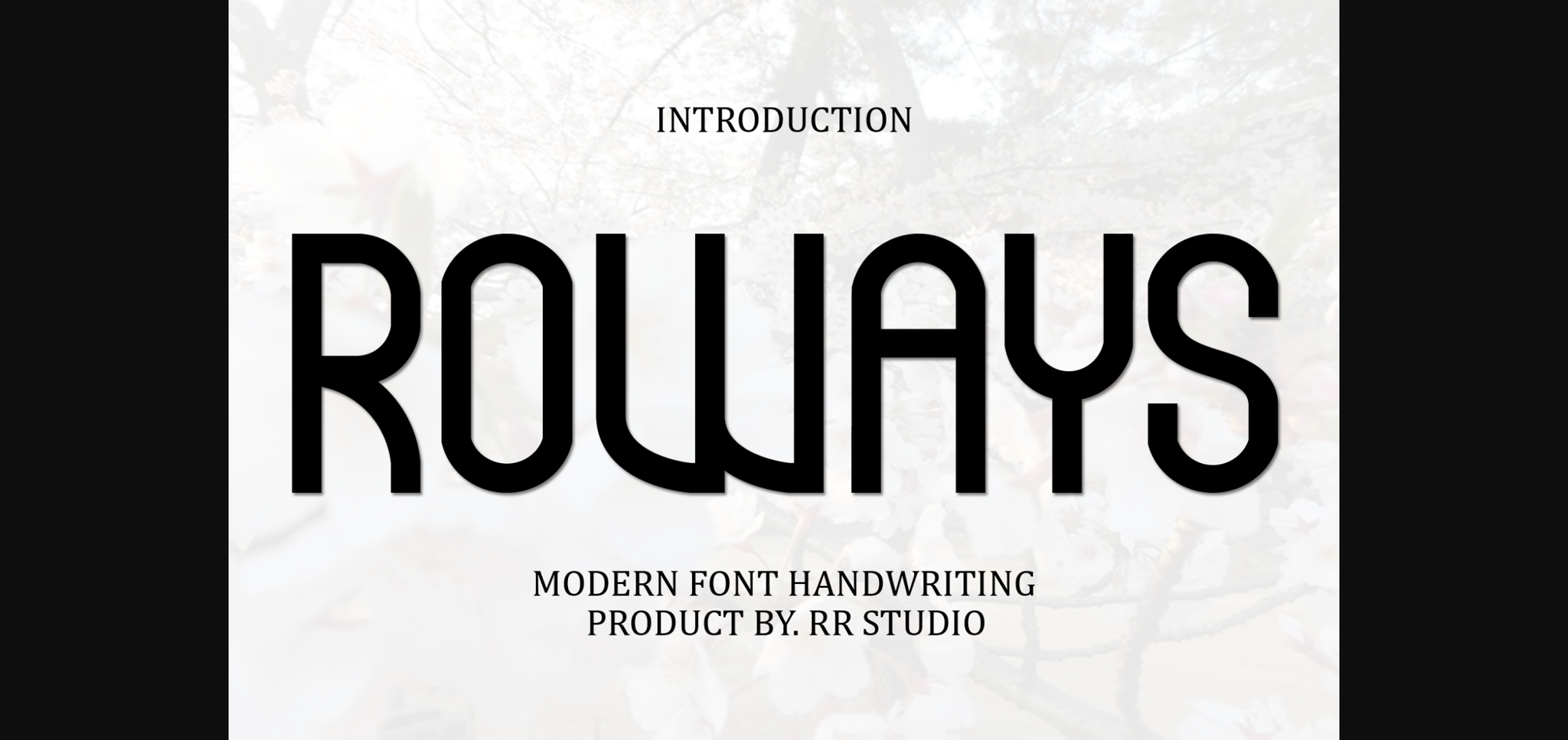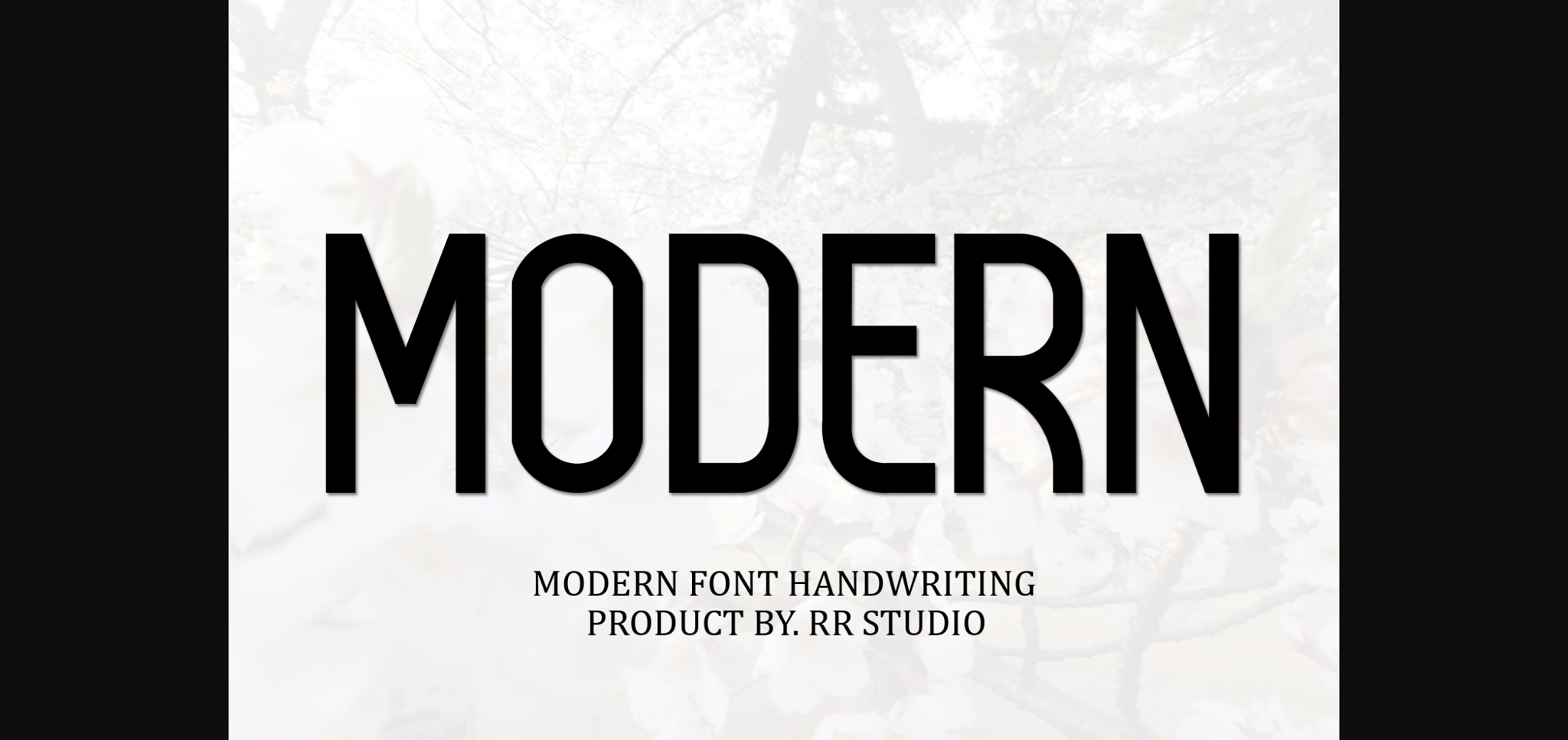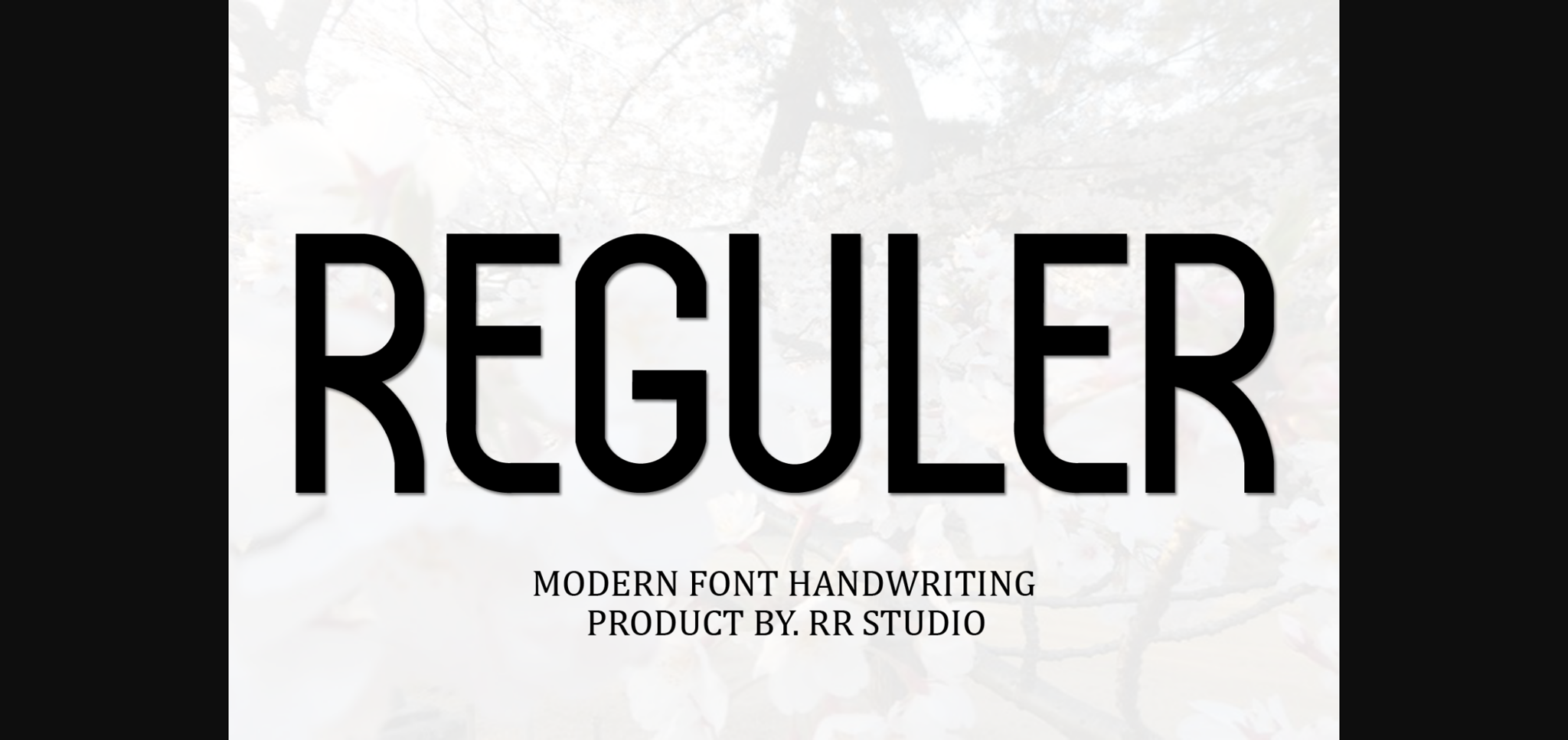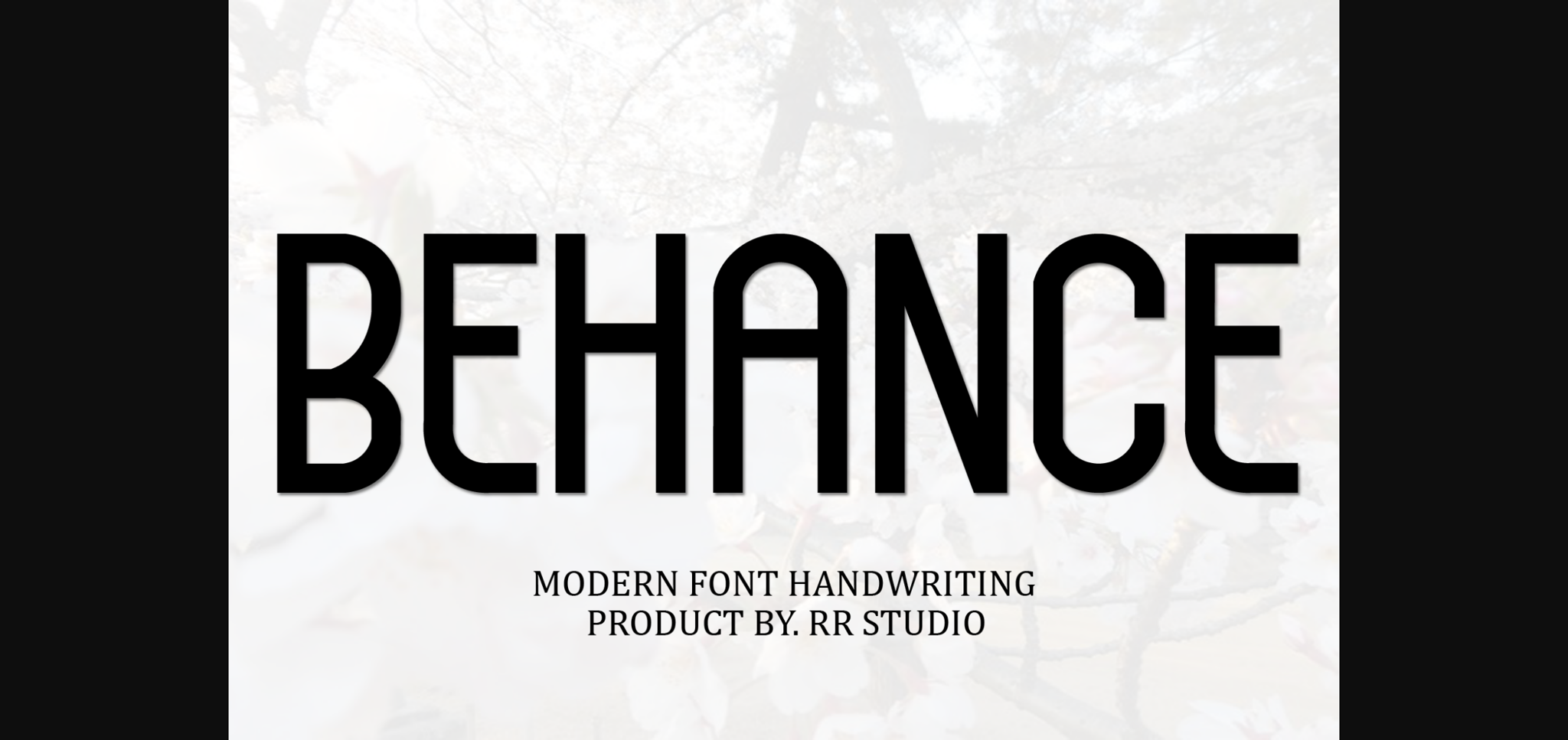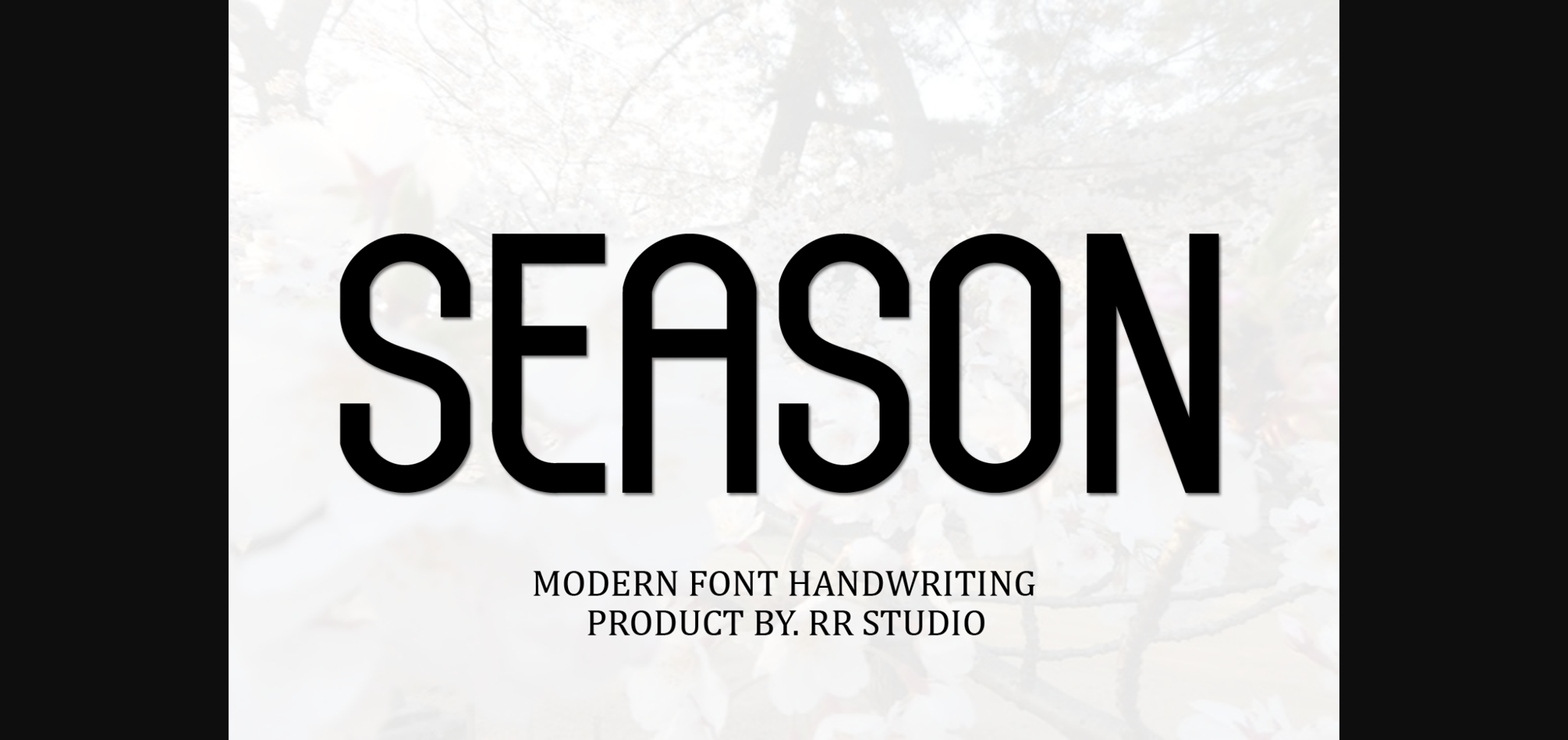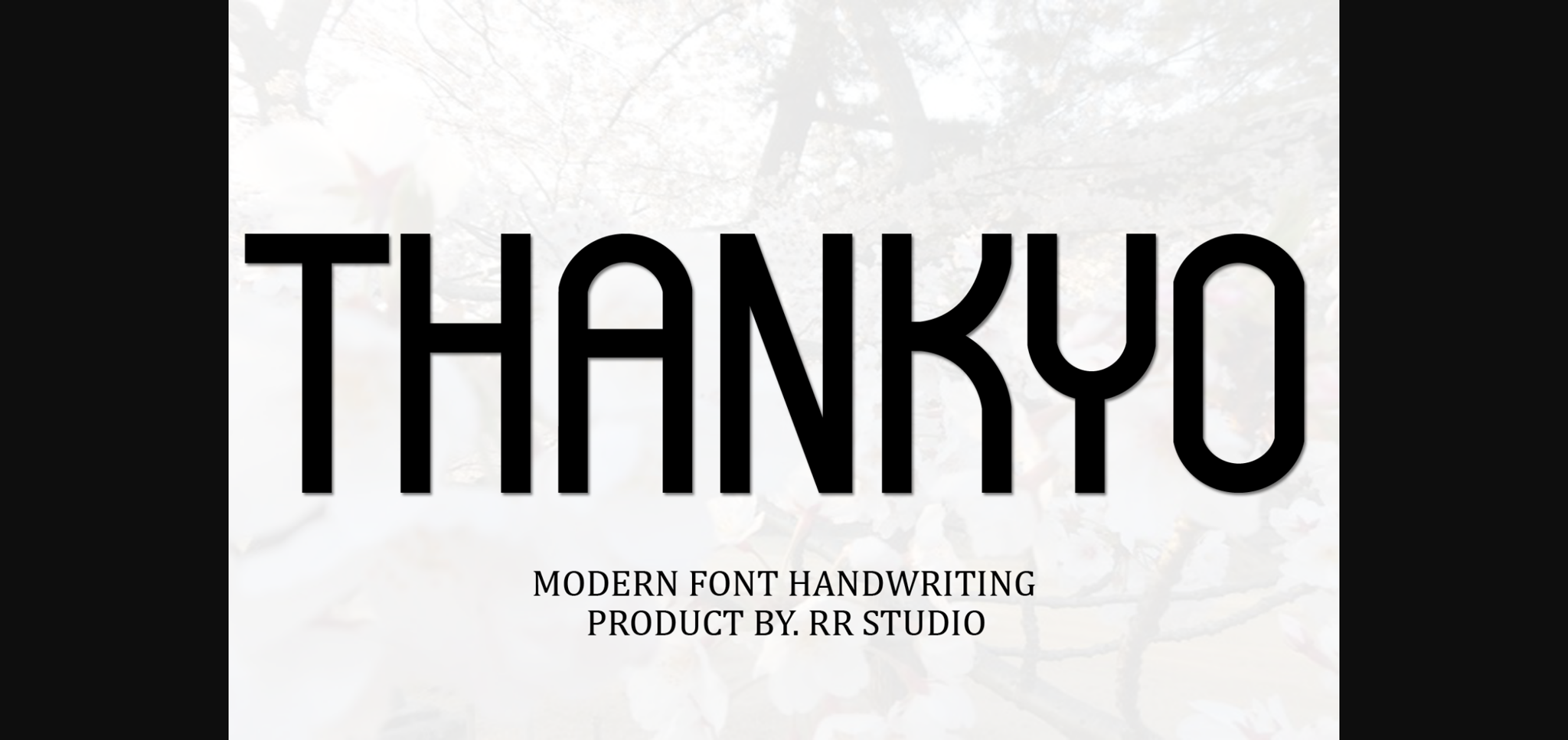
HomeSans Serif FontsRoways Font Sans Serif Fonts Roways Font FacebookXPinterestWhatsApp 1 of 8 ... Roways Font Poster 2... Roways Font Poster 3... Roways Font Poster 4... Roways Font Poster 5... Roways Font Poster 6... Roways Font Poster 7... Roways Font Poster 8... About Roways Font Roways is a stylish and incredibly elegant sans serif font. It looks stunning on wedding invitations, thank you cards, quotes, greeting cards, logos, business cards and every other design which needs a handwritten touch. DOWNLOAD NOW People also explored Kiranty Font Eneki Font Spring Holiday Font Biscuit Font Vallocka Erety Script Font Queens Font Mosang Font Sweet 474 0 TagsRowaysRoways Font Previous articleCaramiel FontNext articleNovaria Font LEAVE A REPLY Cancel reply Comment: Please enter your comment! Name:* Please enter your name here Email:* You have entered an incorrect email address! Please enter your email address here Website: Save my name, email, and website in this browser for the next time I comment. Personal Use Free Mahisya Personal Use Free Read more about this font Trunk Shaped Personal Use Free Read more about this font Street Cred Personal Use Free Read more about this font Shelly Personal Use Free Read more about this font BLOG 5 Fonts That Will Dominate Design Trends in 2026 5 Fonts for 2026 That Will Dominate Design Trends Typography plays a critical role in visual communication, and as we look ahead to 2026, it’s... To increase your work productivity, choose the most readable fonts. Free Fonts Risk: Why Free Fonts Can Be Dangerous for Designers Elegant Wedding Invitation Fonts – Handwritten & Script Fonts